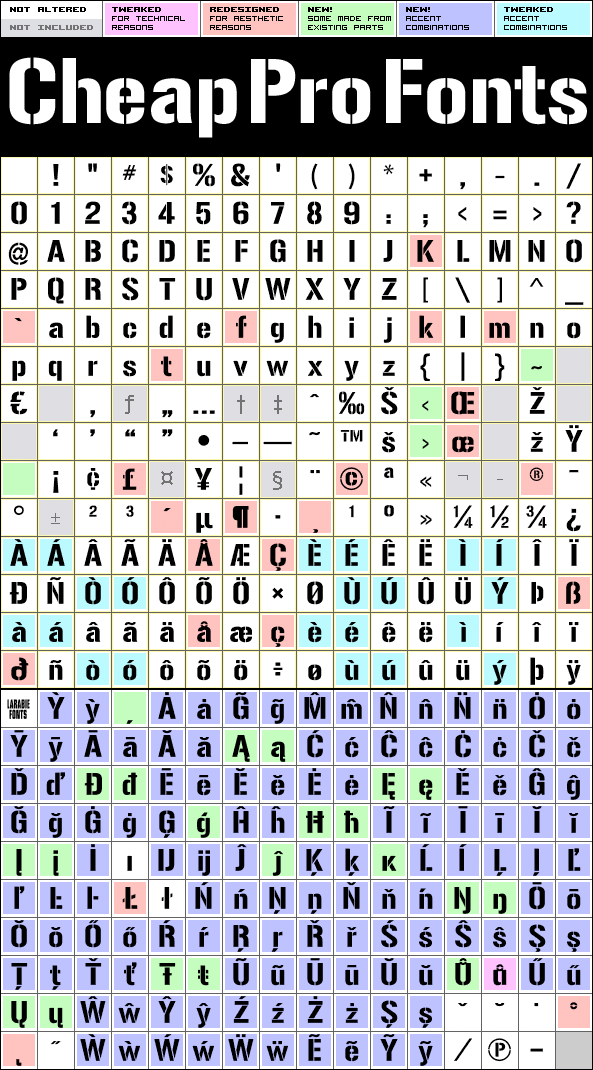
Gunplay Pro
Gunplay Pro by Ray Larabie
Ray Larabie
368 glyphs!
(220 in original)
243 class kernpairs
= 7842 kerning pairs
(1398 in original)
A sturdy stencil font - for that military look ;)
I have tweaked a few of the glyphs, to make them all stencillable - and also added to the kerning (which was pretty good to start with).
Ray Larabie says: «A Sans-serif stencil font inspired by the poster for the movie “The Getaway”.»
Gunplay Pro is a professionally reworked font that contains an extended character set for setting text in 65 languages requiring more than the basic A-Z!